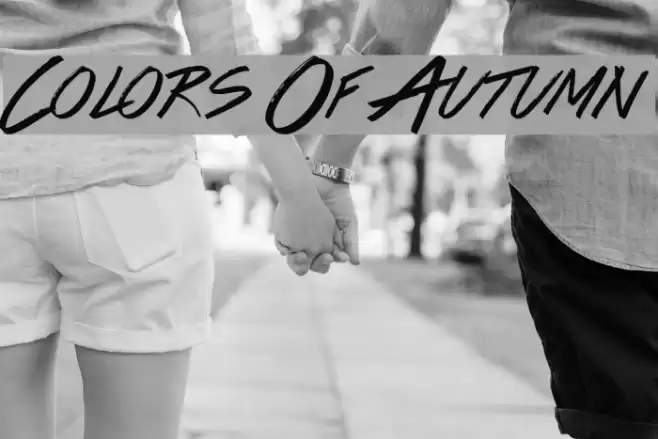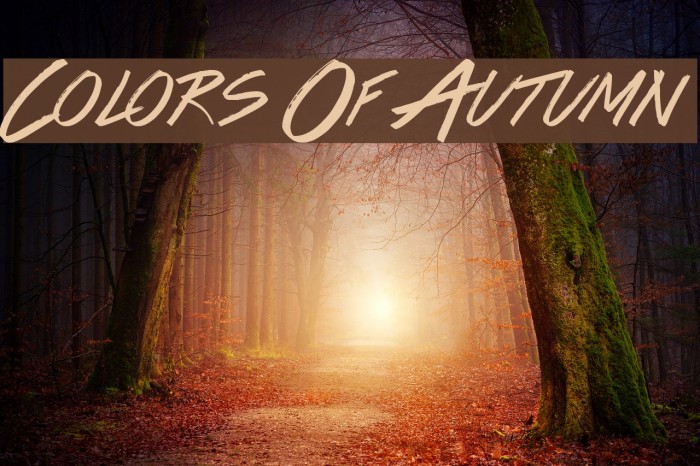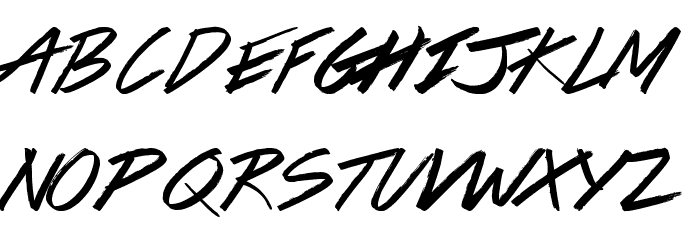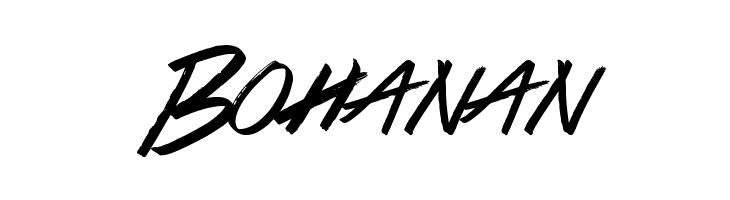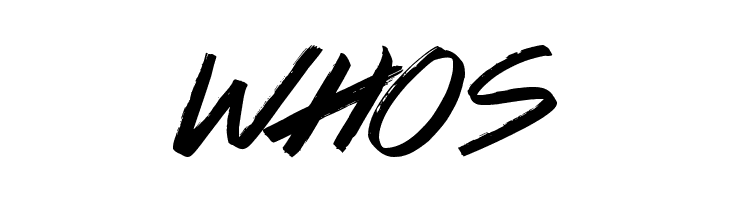
Colors Of Autumn Font
Colors Of Autumn Description
This font features a dynamic and energetic script style, characterized by its bold, sweeping strokes and a sense of movement. The uppercase letters are particularly striking, with sharp angles and a slightly slanted orientation that gives them a sense of urgency and flair. The lowercase letters maintain this lively aesthetic, with fluid connections and a consistent rhythm throughout. The numerals are clear and bold, matching the overall style of the alphabet. Special characters are well-integrated, maintaining the same bold and expressive quality. This font is ideal for projects that require a touch of personality and vibrancy.
A bold, energetic script font with sweeping strokes and dynamic flair from Handwritten fonts.
- Proposed Projects: Perfect for branding, advertising, posters, and any design needing a lively, expressive touch.